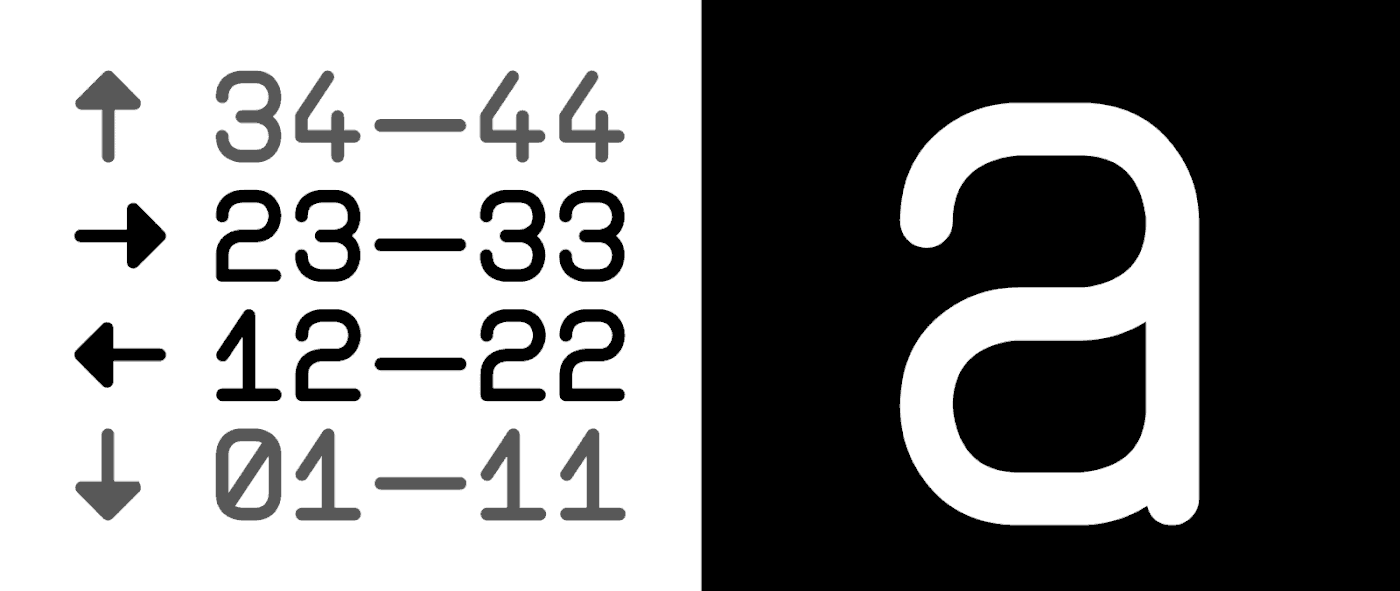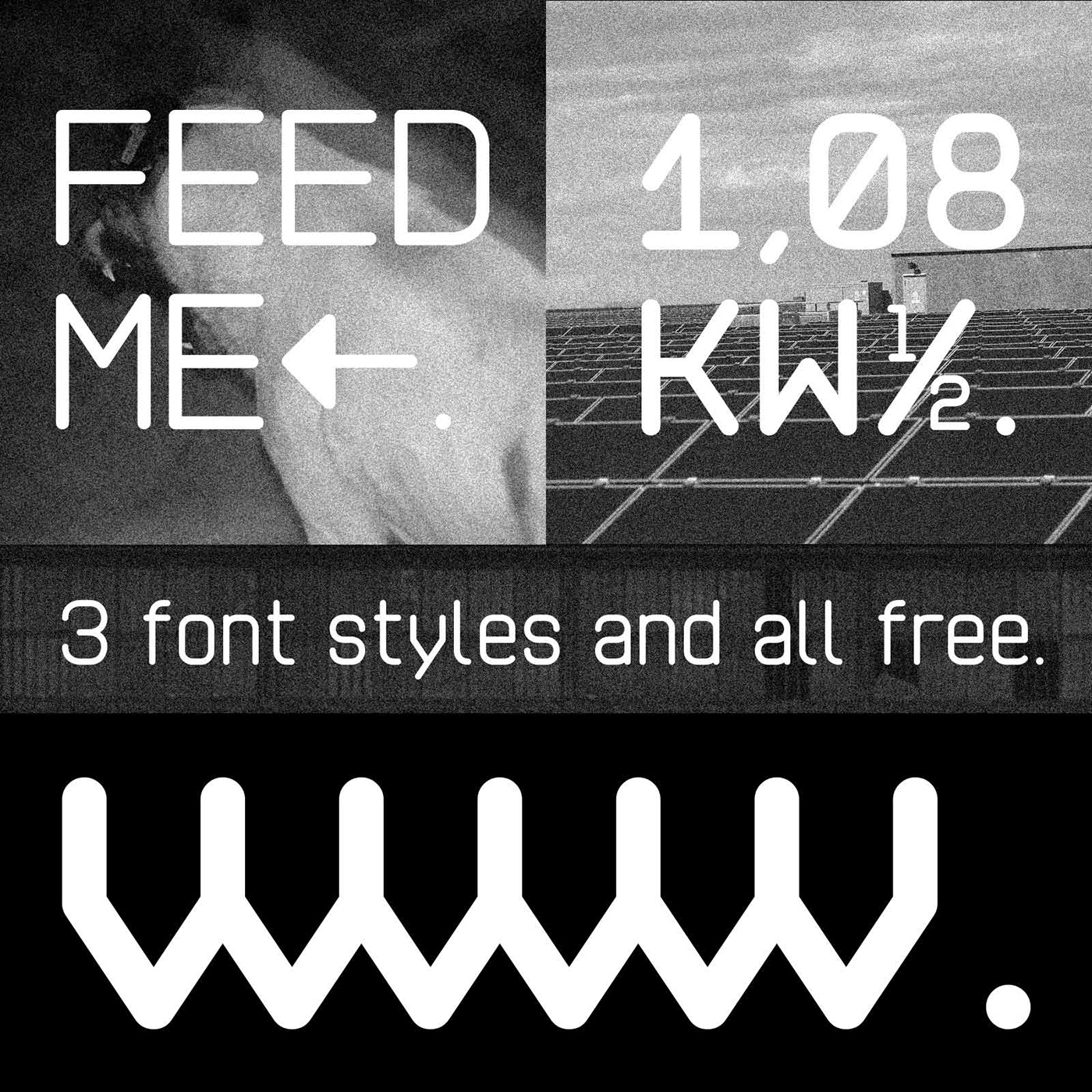
Auch Typeface
Auch is a modern and minimal sans serif font. Auch will be perfect for packaging, presentations, logo, headlines, lettering, posters, branding, quotes, titles, magazines headings, web layouts, advertising, invitations, packaging design, books, and nearly any creative design.